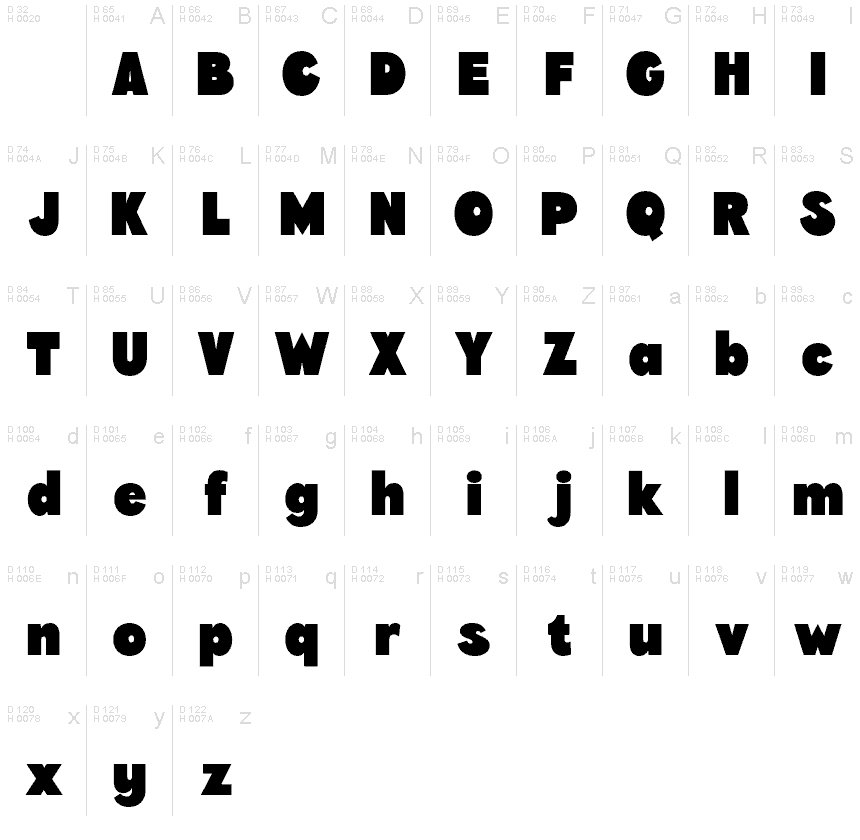
CS Guthen Regular Demo
CS Guthen font is a bold sans serif typeface designed by Craft Supply Co. Its smooth and robust geometric influences create a contemporary feel with a strong visual impact. Defined by its clarity and balance, it balances modern elements with classic shapes for easy readability in every size.